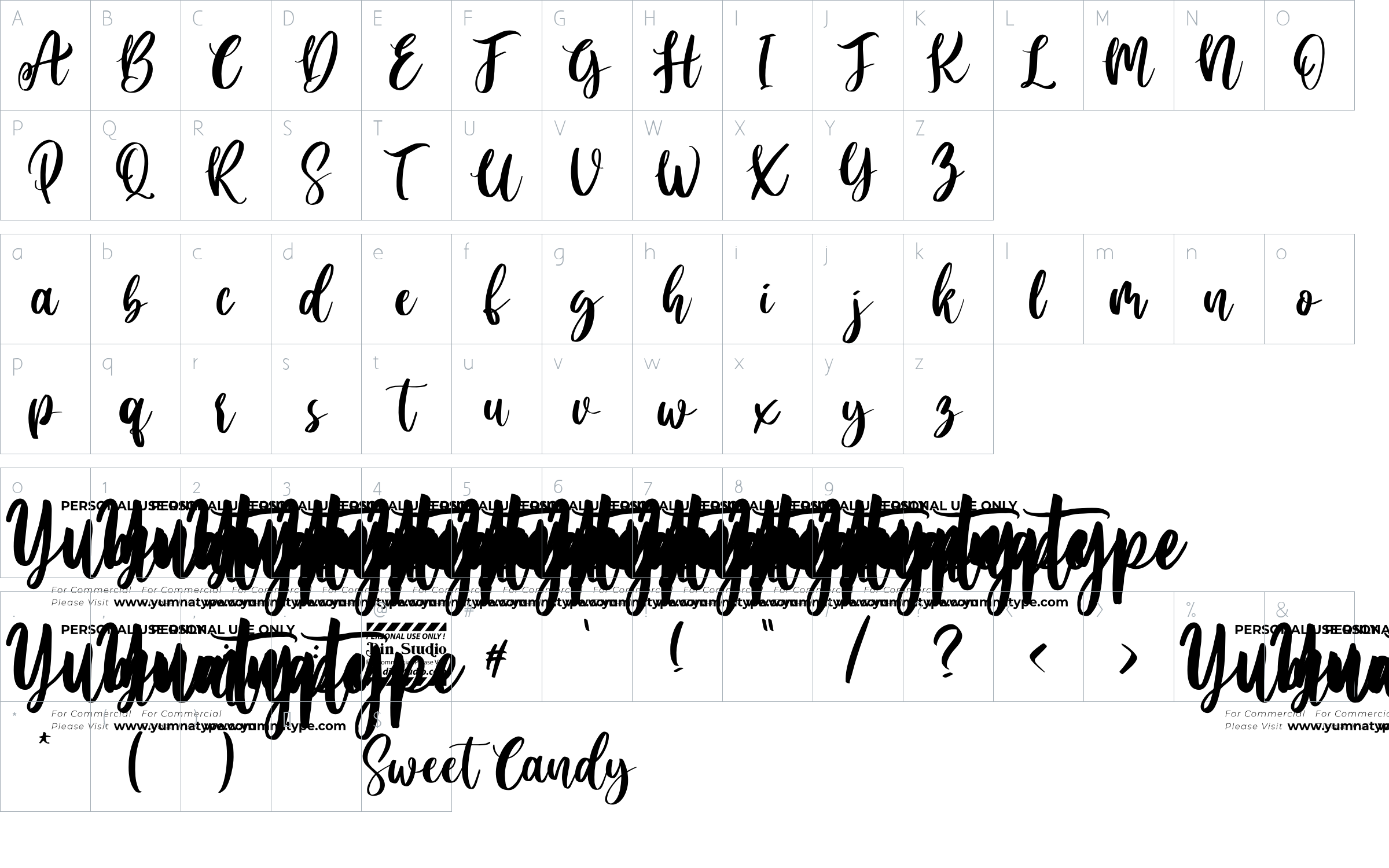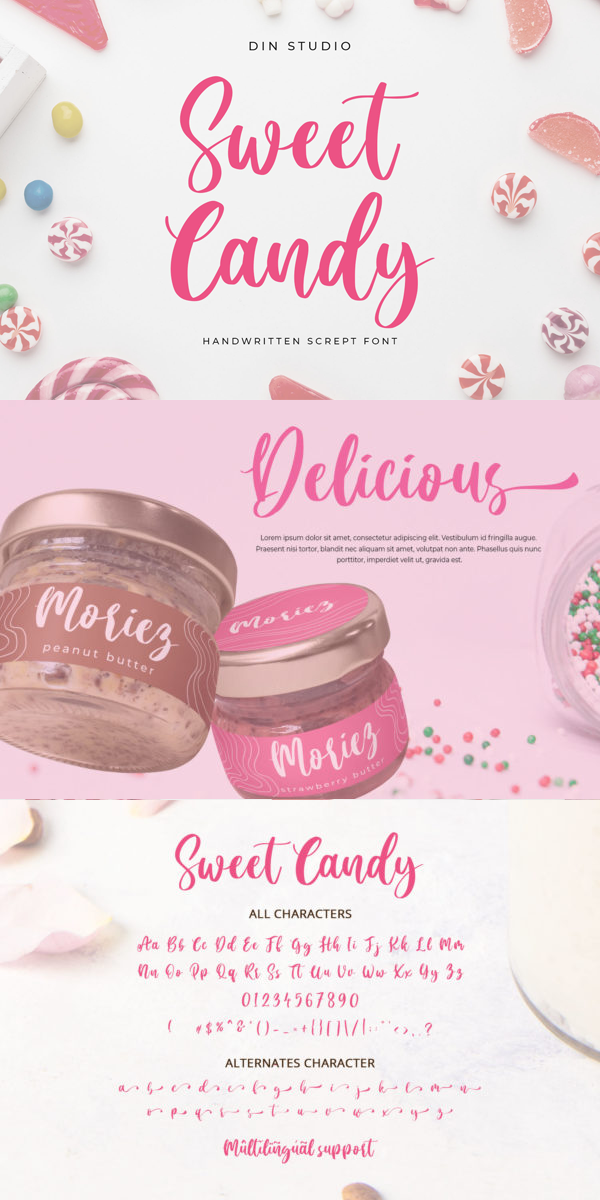
Sweet Candy Font
About Sweet Candy
Sweet Candy is a beautiful and modern script.
It brings a beautiful and modern typeface that best used for weddings, branding, logotype, and quotes.:
Features :
-Ligature
-Beautiful Alternates